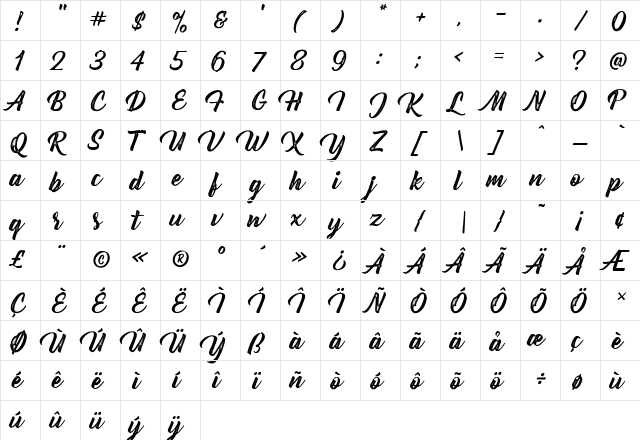
Bernadette Rough Regular
Design Context for Bernadette Rough Typeface
Bernadette Rough embraces imperfection — its rough, textured character adds raw authenticity to designs that want to feel lived-in and unconventional.
A strong fit for alternative music projects, graffiti-adjacent design, and anything that deliberately resists polish.
Pro Tip: Use Bernadette Rough at larger sizes where the texture and irregularity of each letterform can be clearly seen — it loses its character at small sizes.